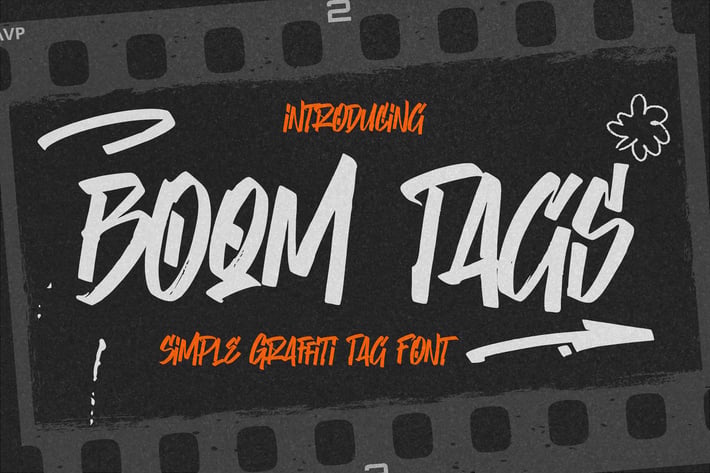
Boom Tags - Simple Graffiti Tag Font
Hello Everyone, introduce our new product Font Boom Tags This Is Simple Graffiti Tag Font. This is a Textured Natural Style and classy style with a clear style and funky style.
This font Boom Tags is great for your next creative project such as logos, printed quotes, invitations, cards, product packaging, headers, Logotype, Letterhead, Poster, Design this font is great for your creative projects such as watermark on photography, and perfect for logos & branding, invitation,advertisements,product designs, stationery, wedding designs,label ,product packaging, special events or anything that need handwritting taste.
That is has charming, authentic and relaxed characteristic more natural look to your text.